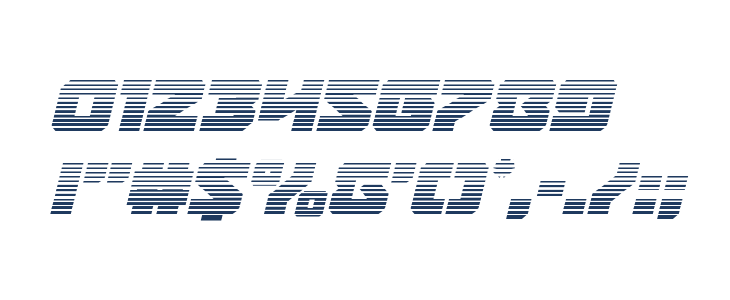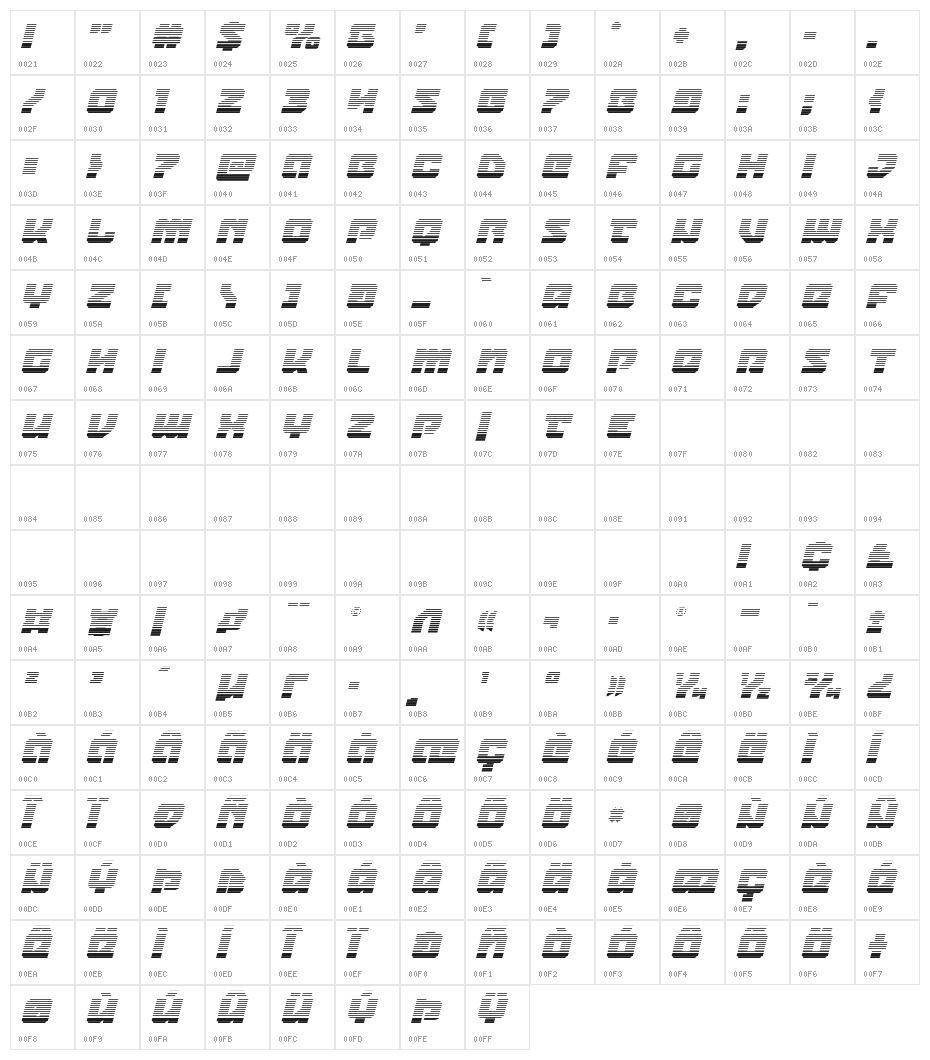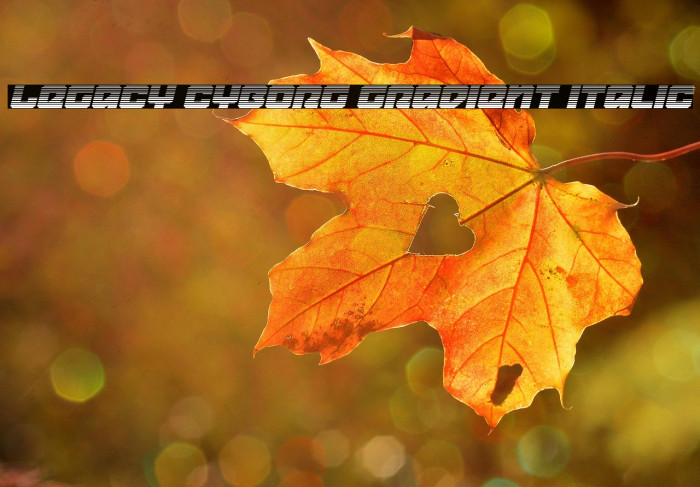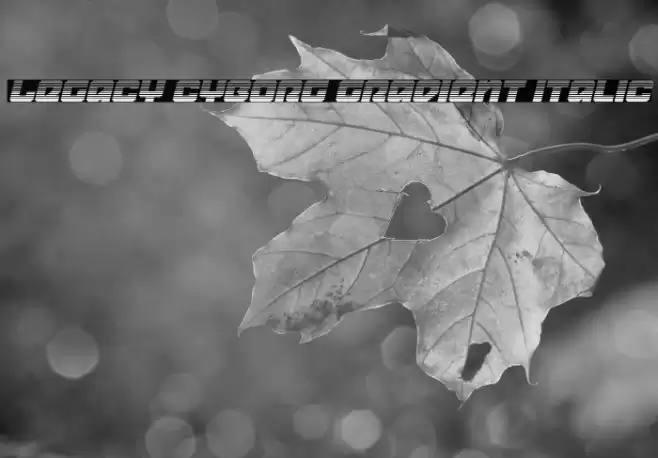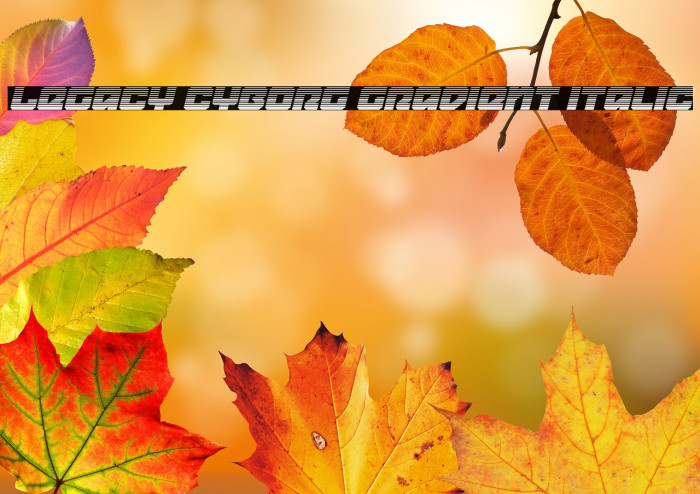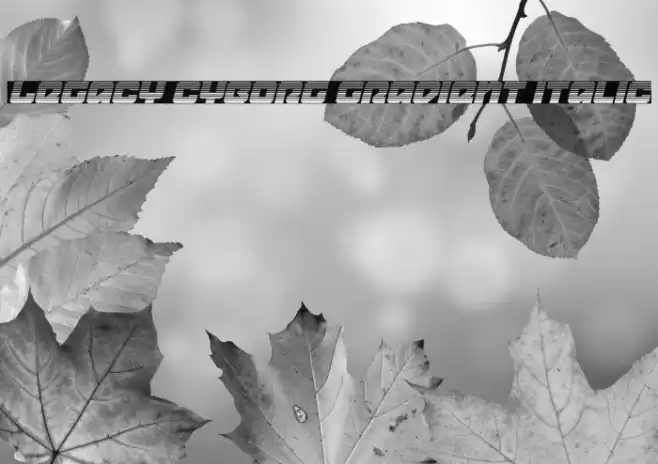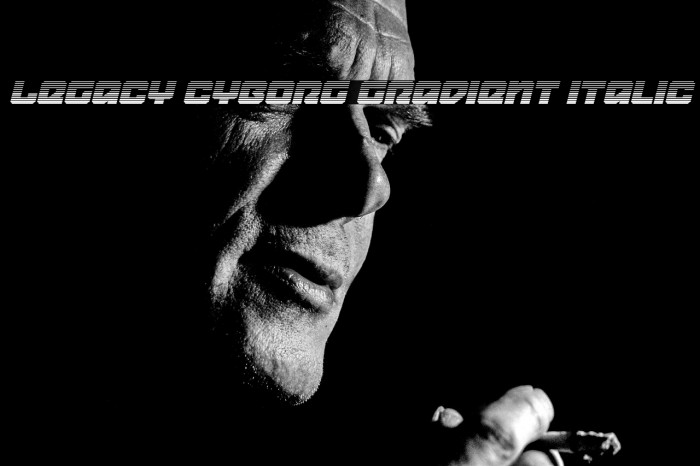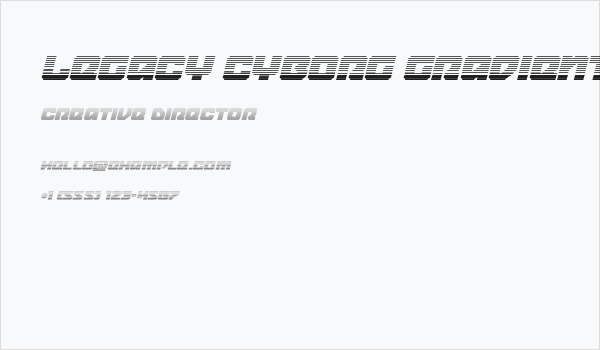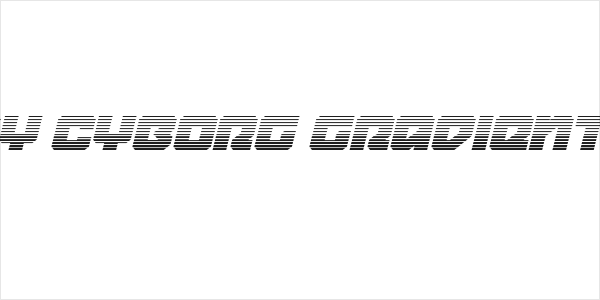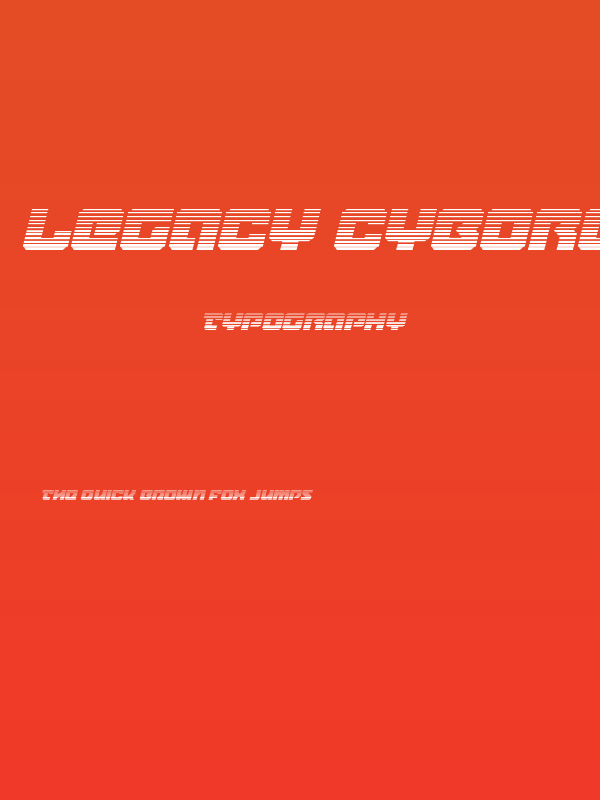
Legacy Cyborg Gradient Italic Font
Legacy Cyborg Gradient Italic Description
This font features a futuristic and dynamic design with a distinct italic slant, giving it a sense of motion and speed. The characters are composed of horizontal lines that create a gradient effect, enhancing its modern and digital aesthetic. The uppercase and lowercase letters, as well as numbers and special characters, maintain a consistent style that is both bold and eye-catching. The font's unique structure makes it suitable for projects that require a technological or sci-fi theme.
Proposed ProjectsPerfect for sci-fi movie posters, video game titles, tech company logos, and digital art projects.